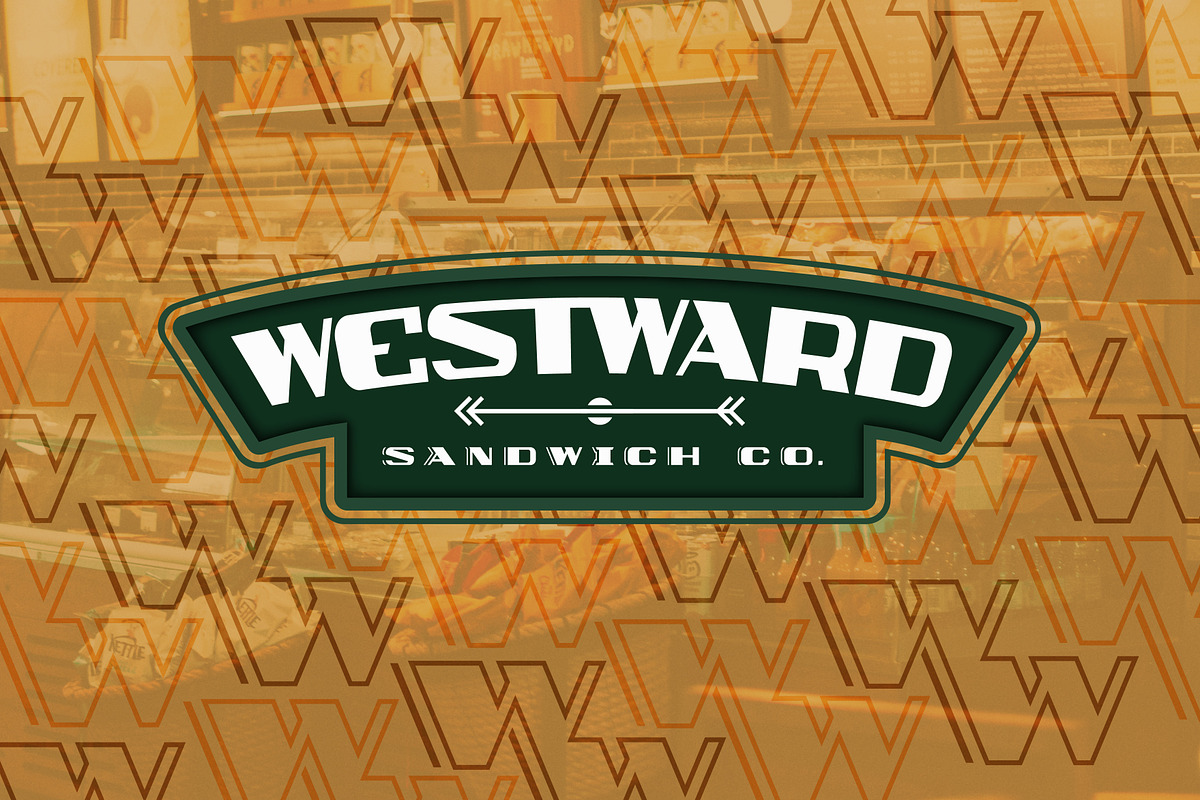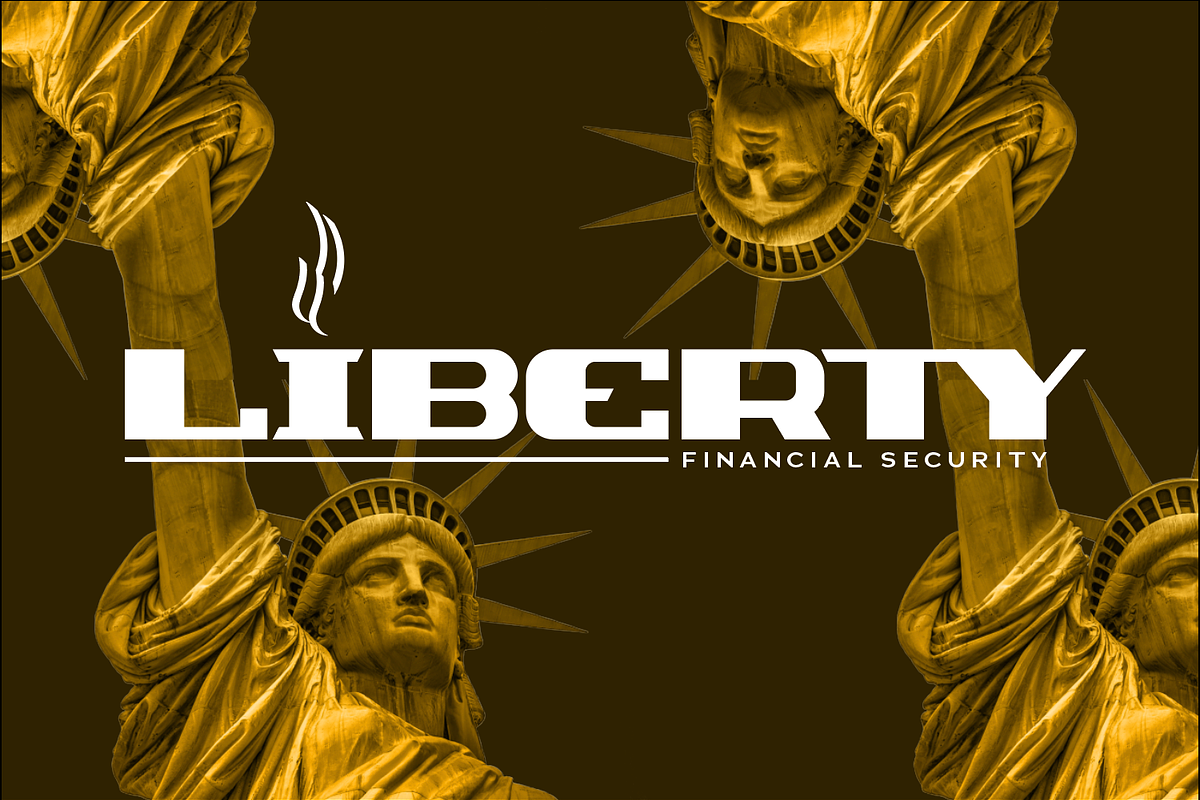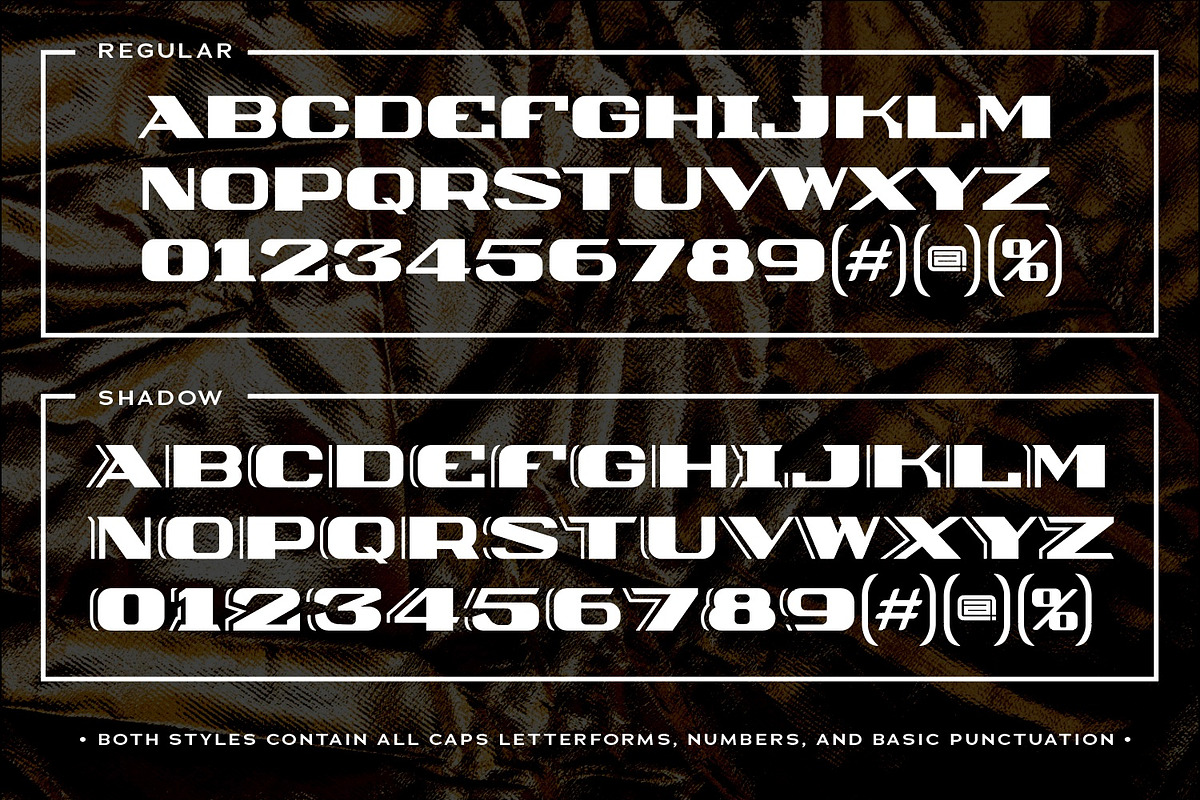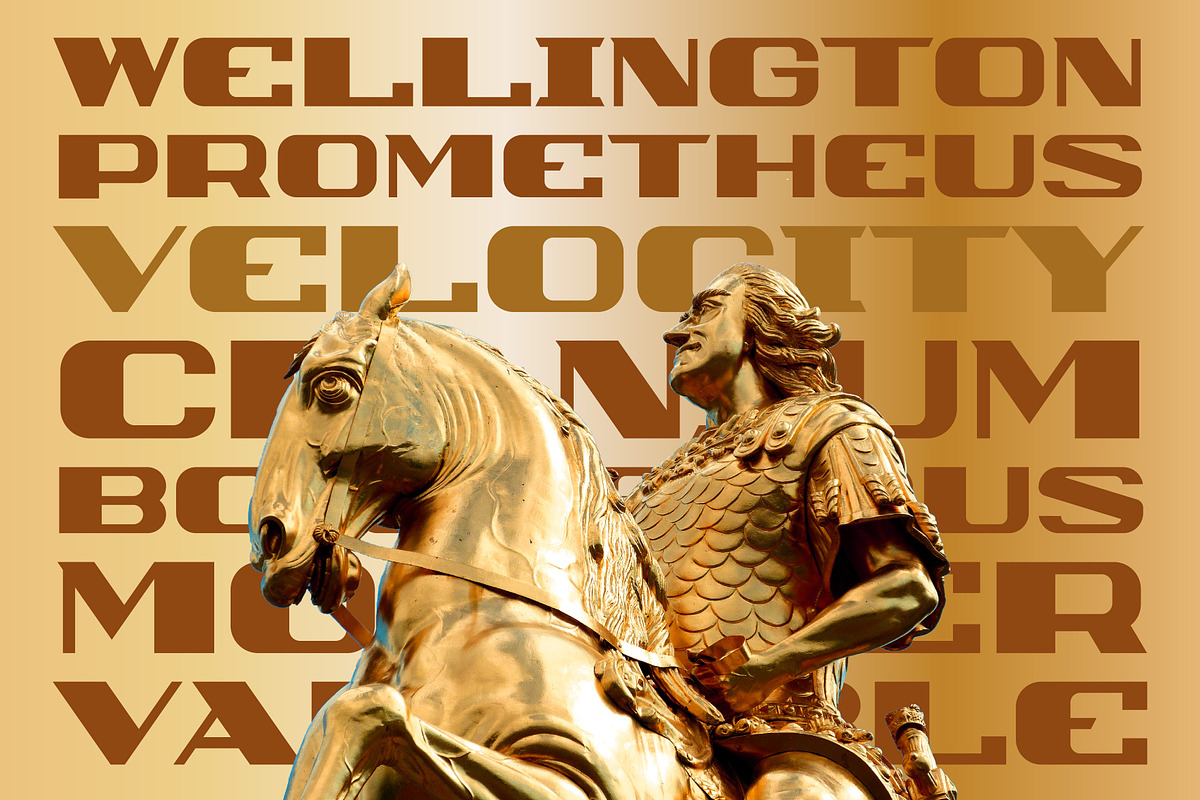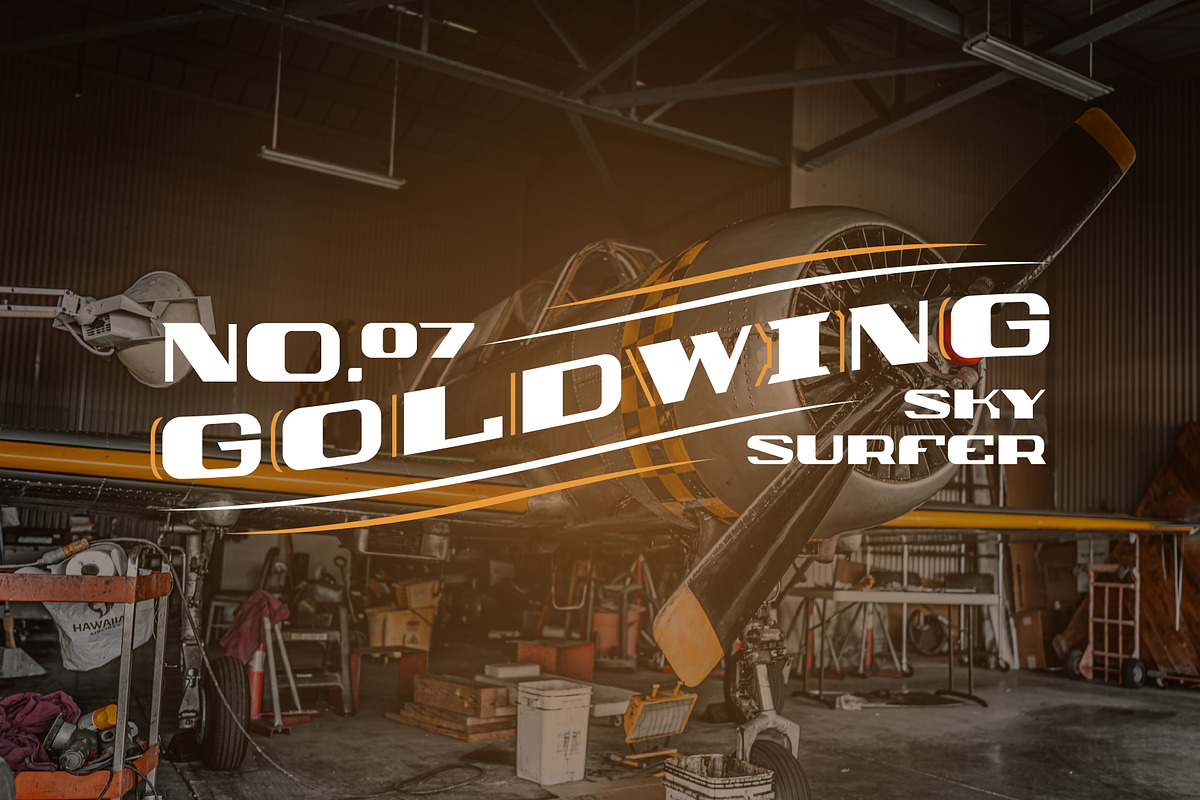
Valiant
BEHOLD, the VALIANT display typeface!
Wide, bold, epic, heroic, powerful, and sturdy are some words to describe Valiant's prowess. This expanded display font features two styles and is certain to cover lots of ground. It includes a regular style as well as a shadowed style. Use the typeface for anything including:
- logos
- display type
- headlines
- quotes
- and anything you desire
ALL CAPS FONT with 2 FONT STYLES that include basic punctuation and numbers. Tag Valiant in today, you won't regret it. :)